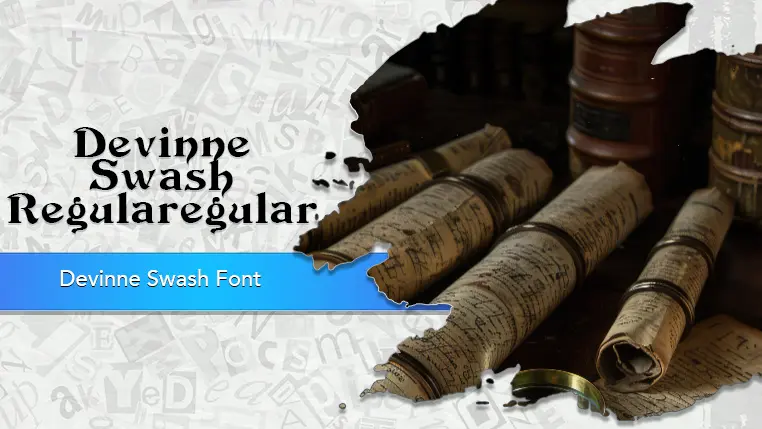
The Devinne Swash font family may be ideal for you if you enjoy working on an artistic design project. The lively, expressive look of this typeface, which was created by Dieter Steffmann, makes it ideal for Can be used for titles of classic literature, historical fiction, or books that aim for a timeless, elegant aesthetic. Magazine layouts, posters, or digital banners where a visually rich and distinctive headline is needed. Can be incorporated into designs that draw inspiration from these historical art movements. and other light-hearted visual projects.
Regular, Regular are the two primary font styles of the Devinne Swash font family. You may build dynamic, visually appealing text layouts with the distinct flair that each style offers. With crisp, readable lines and a relaxed tone.